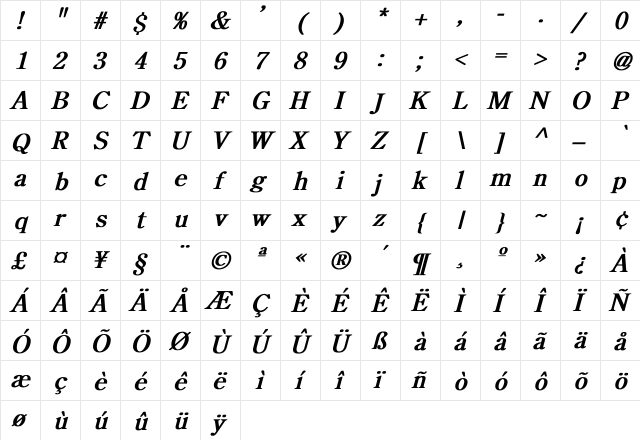
Katia Bold Italic Regular
Design Context for Katia Bold Italic Typeface
Katia Bold Italic takes a measured approach to typography — its balanced proportions and neutral character make it a reliable workhorse for both digital and print work. The slanted form adds forward momentum and visual energy. Its bold stroke weight gives it real presence on the page.
Pro Tip: Try Katia Bold Italic for annotation and caption copy alongside an upright companion — the contrast in angle creates a dynamic but ordered typographic system.